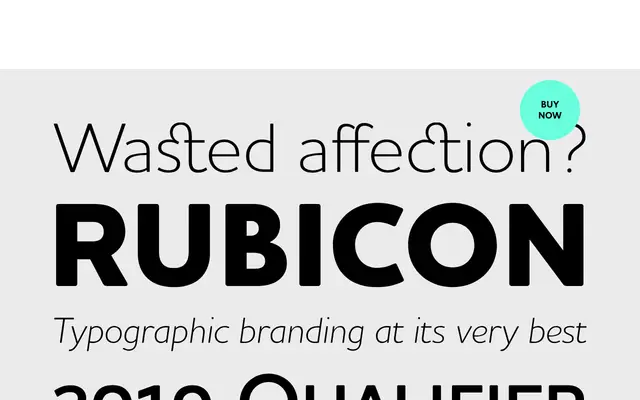
Houschka Alt Pro
A variant of Houschka Pro that swaps its rounded A and W for straight-sided alternates, lending the family a more formal, corporate tone across six weights and true italics.
Where Houschka Pro leads with rounded signature glyphs, the Alt Pro version places straight A and W forms at the default positions, making it the more restrained of the two families without altering any other aspect of the design. The 12-style family spans Thin to ExtraBold with true italics, and each font carries an extensive OpenType feature set including small caps, three stylistic sets, contextual alternates, ligatures and four numeral styles. Language coverage stretches across extended Latin and Cyrillic, supporting over 50 languages from Afrikaans to Ukrainian.
A geometric sans-serif with rounded letterforms inspired by 1930s signage; the Alt Pro variant swaps rounded A and W glyphs for straight alternatives, giving it a more formal, businesslike character than the standard Houschka Pro.